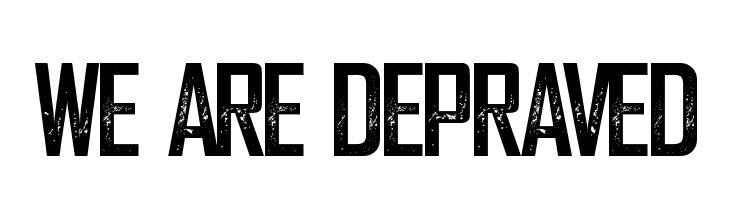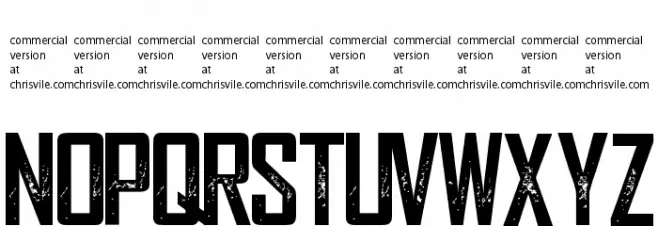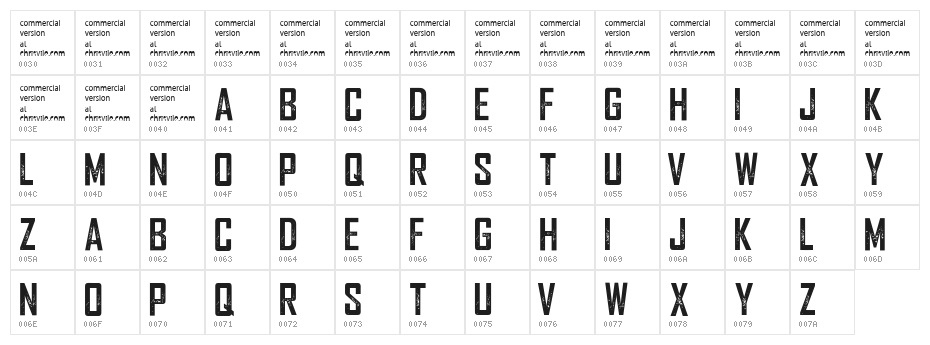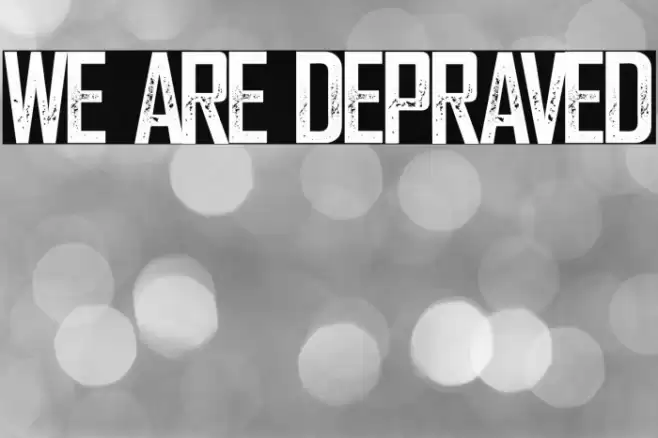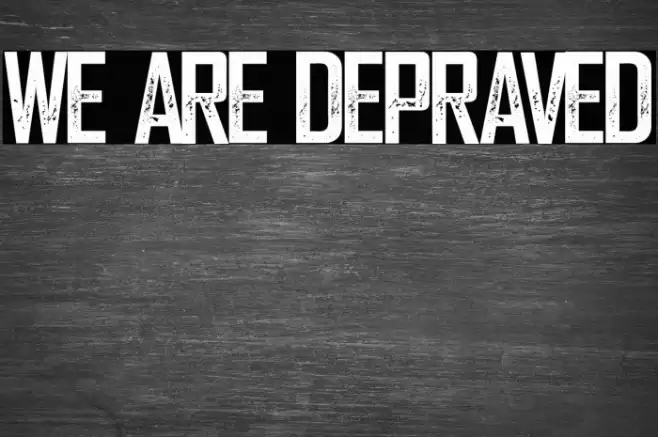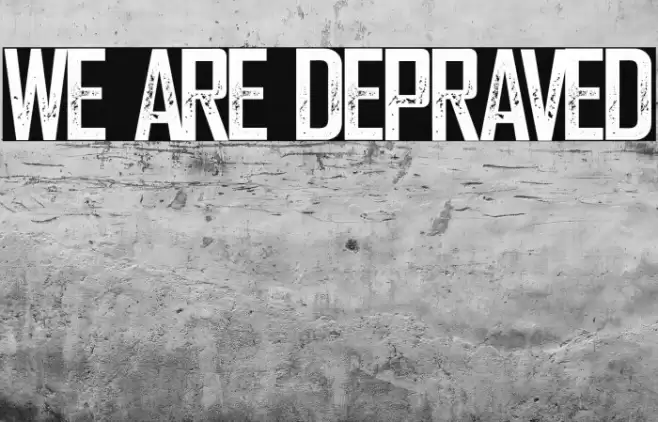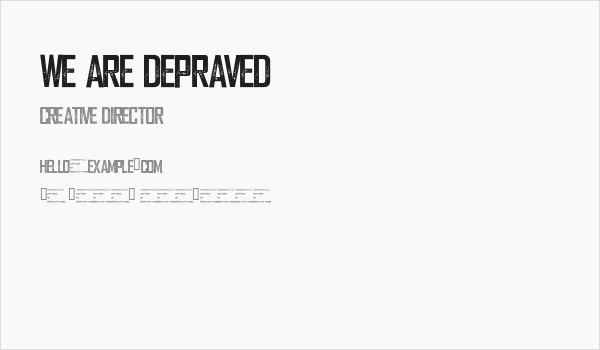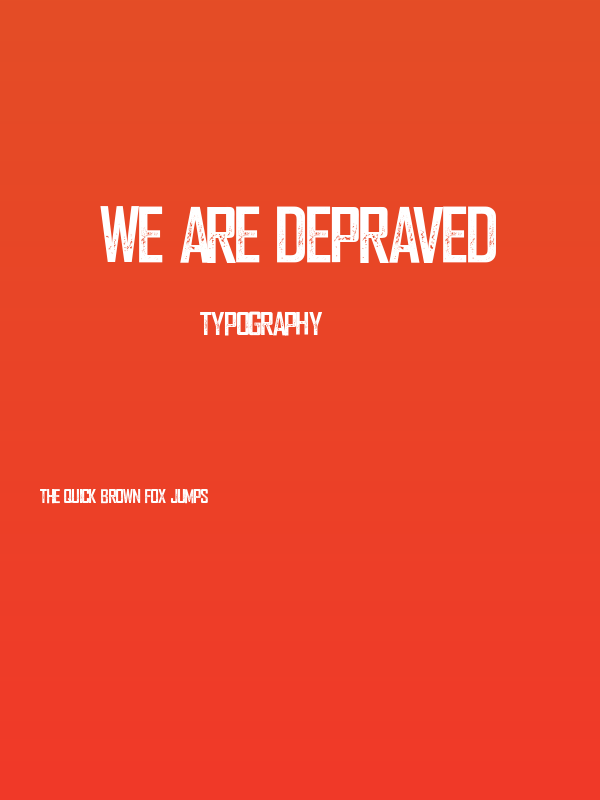
We are Depraved Font
We are Depraved Description
This font features a bold, distressed style with a gritty texture that gives it a rugged, vintage appearance. The uppercase letters are uniformly designed with a blocky, geometric structure, while the distressed effect adds a unique character to each letter, making them appear weathered and worn. The font's boldness and texture make it stand out, suitable for projects that require a strong visual impact. The consistent width and height of the characters ensure readability, while the distressed details add an artistic flair.
| Proposed Projects | Ideal for posters, album covers, branding, and any design needing a bold, vintage aesthetic. |